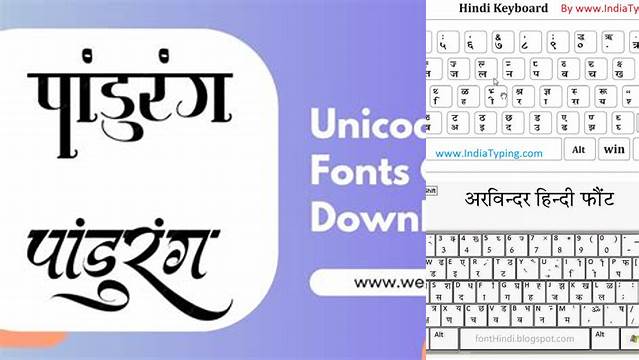
Hindi Unicode Font Free Download: Your Ultimate Guide
Hey guys! Ever found yourself needing a cool Hindi font for a project but got lost in the maze of downloads? Don't worry, you're not alone! Finding the perfect Hindi Unicode font for your needs can be a bit tricky, but that's why we're here to help. This guide will walk you through everything you need to know about downloading Hindi Unicode fonts for free, ensuring your documents, designs, and creative projects look absolutely stunning. So, let’s dive in and explore the world of Hindi typography!
Understanding Hindi Unicode Fonts
Before we jump into the download process, let’s quickly understand what Hindi Unicode fonts are and why they're so important. Essentially, Hindi Unicode fonts are digital typefaces that support the Devanagari script used for Hindi. Unicode is a universal character encoding standard, which means these fonts can be used across different platforms and software without any compatibility issues. Using Unicode fonts ensures that your Hindi text will display correctly, no matter where it's viewed. This is crucial for everything from professional documents to social media posts.
What is Unicode and Why Does it Matter?
Okay, let's break it down. Unicode is like a universal translator for computers. It assigns a unique number to every character, no matter the language or platform. This means that when you use a Hindi Unicode font, the computer knows exactly which character you're typing, ensuring it displays correctly everywhere. Without Unicode, you might see gibberish or strange symbols instead of your beautiful Hindi text. So, Unicode is the hero that keeps our languages consistent in the digital world.
The Importance of Using Unicode Fonts for Hindi
Using Unicode fonts for Hindi is super important for a bunch of reasons. First off, it ensures compatibility. Imagine sending a beautifully crafted document only to have the recipient see a jumbled mess of characters. Not cool, right? Unicode prevents this by making sure the font displays correctly on any device. Plus, it’s essential for web development. If you’re building a website with Hindi content, Unicode fonts are a must. They make your site accessible to a global audience and ensure everyone sees your content as intended. So, using Unicode isn't just a nice-to-have; it's a necessity for clear and effective communication in Hindi.
Key Features of Hindi Unicode Fonts
Hindi Unicode fonts come with some awesome features that make them super versatile. They support a wide range of characters, including all the unique letters and symbols in the Devanagari script. This means you can type complex words and phrases without worrying about missing characters. Many Unicode fonts also include ligatures, which are fancy combinations of characters that make the text look more elegant and professional. Plus, they often come in various styles and weights, from bold and strong to light and delicate, giving you plenty of options for your projects. These features make Hindi Unicode fonts a fantastic tool for anyone working with Hindi text.
Open Source Font Repositories
Open source font repositories are treasure troves for free fonts, and they’re especially great for Hindi Unicode fonts. These repositories are community-driven, meaning designers and typographers contribute their work for others to use. Google Fonts, as mentioned earlier, is a prime example of an open-source repository. Sites like GitHub also host font projects, where you can find unique and often high-quality fonts. The beauty of open source is that the fonts are usually free for both personal and commercial use, but it’s always a good idea to review the specific license attached to each font.
Font Foundries Offering Free Hindi Fonts
Some font foundries, which are companies or collectives that design and distribute fonts, also offer free Hindi Unicode fonts. This is a great way to get professionally designed fonts without breaking the bank. Foundries sometimes release fonts under open-source licenses or as freebies to promote their work. Keep an eye on the websites of foundries that specialize in Indic scripts, as they’re more likely to have free Hindi fonts available. It’s worth subscribing to their newsletters or following them on social media to stay updated on any free font releases.
Popular Hindi Unicode Font Styles
Choosing the right font style can make a huge difference in how your text looks and feels. Hindi Unicode fonts come in a variety of styles, from classic and elegant to modern and bold. Knowing the different styles can help you pick the perfect font for your project, whether you're writing a formal document, designing a poster, or creating a website. Let's explore some popular styles and what makes them unique.
The Future of Hindi Fonts and Digital Communication
The future of Hindi fonts and digital communication looks bright. With the increasing use of digital platforms, there’s a growing demand for high-quality Hindi fonts that are both visually appealing and functional. Font designers are constantly creating new and innovative typefaces to meet this demand. Technology is also playing a role, with advancements in font rendering and display making it easier to use complex scripts like Devanagari on various devices. As digital communication continues to evolve, Hindi fonts will play an increasingly important role in connecting people and sharing information. Embracing these advancements will help ensure that Hindi remains a vibrant and accessible language in the digital age.